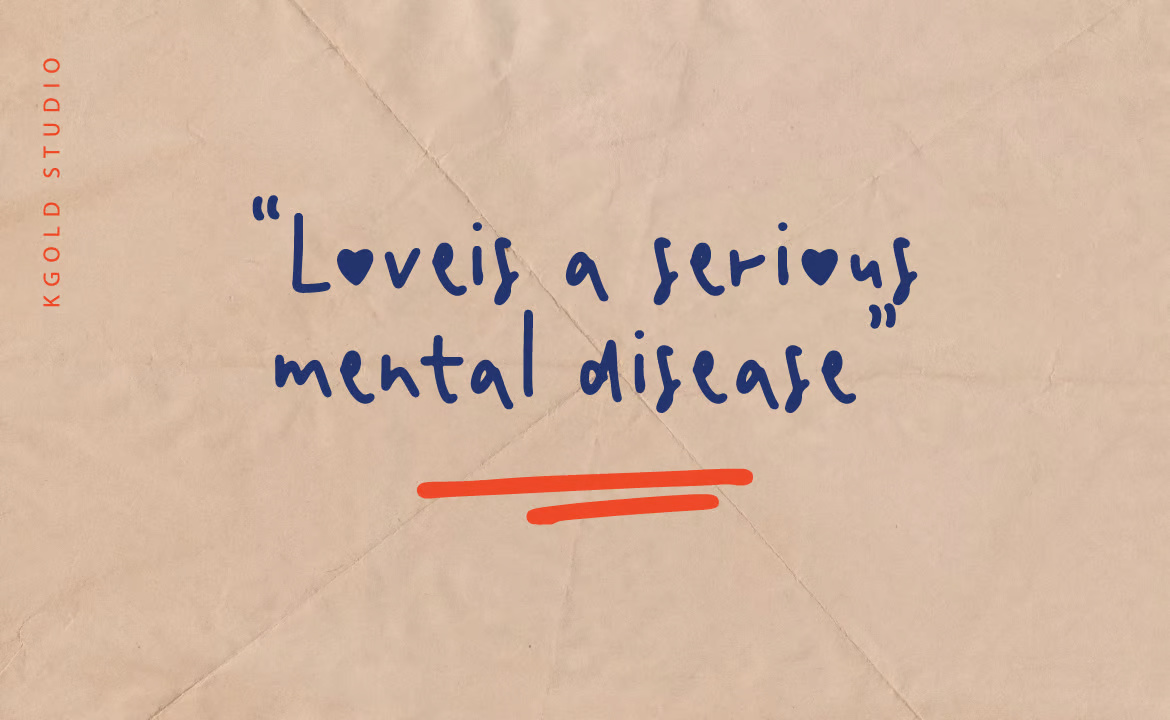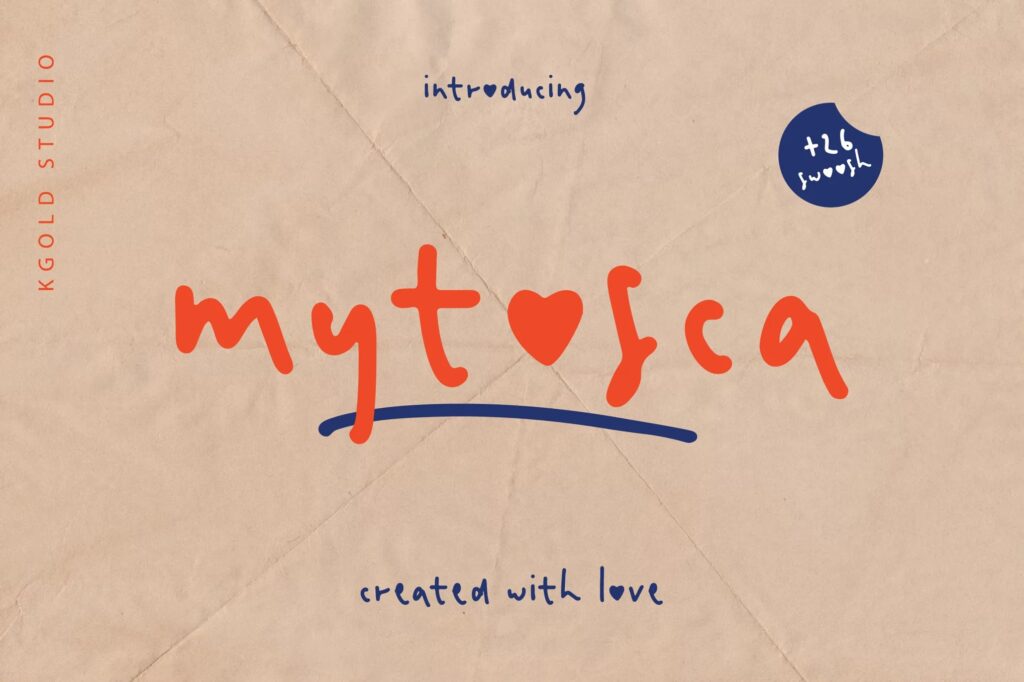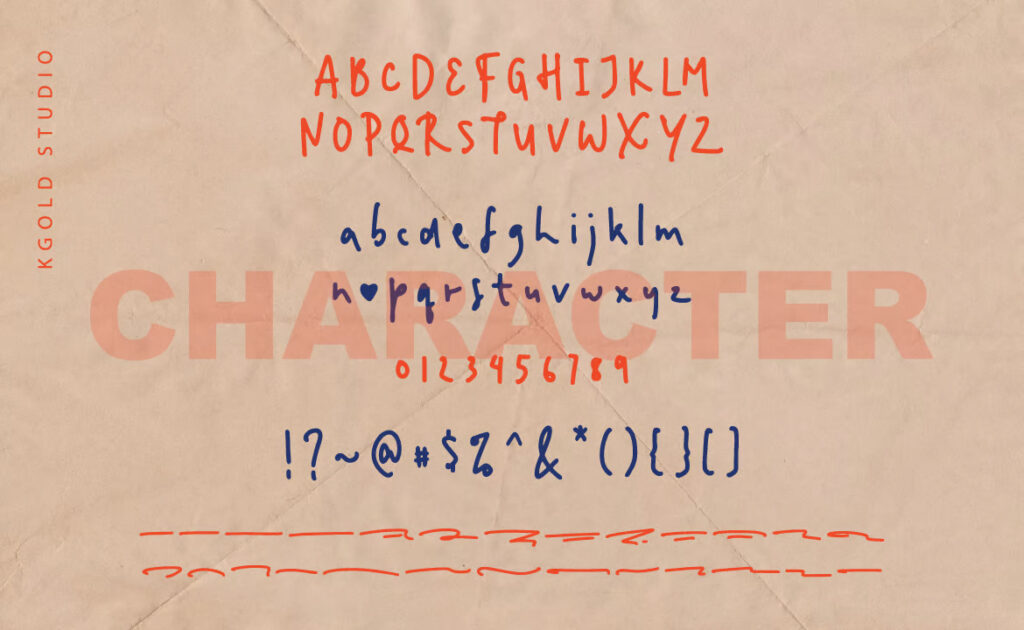
Mytosca Font
Mytosca is a stunning handwritten font designed to bring a personal and artistic touch to your creative projects. With its smooth, natural strokes and elegant swoosh details, Mytosca effortlessly combines modern charm with timeless handwritten style.
Mytosca – Handwritten Font